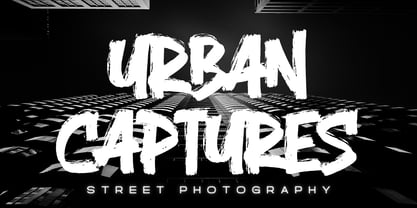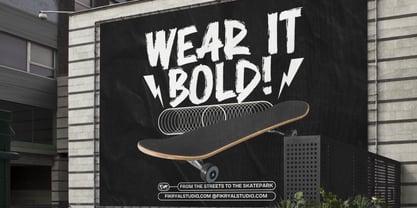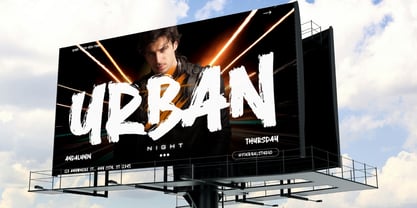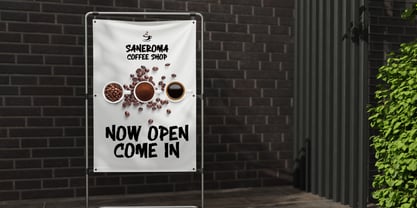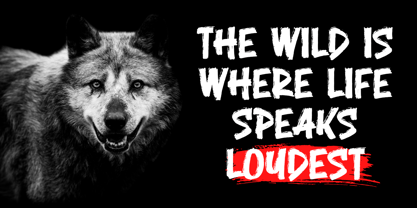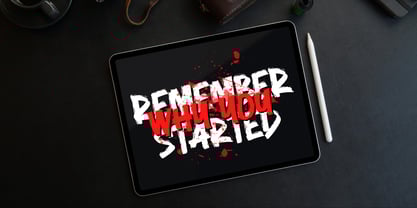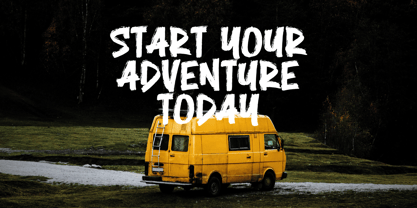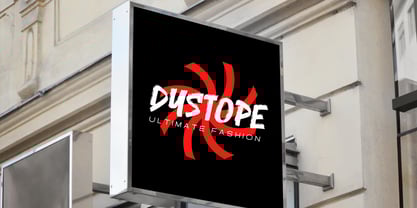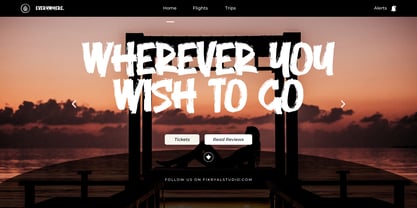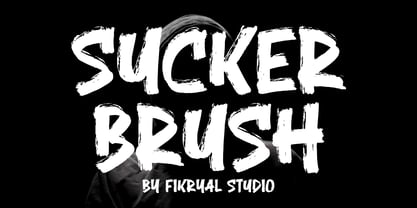
Sucker Brush
by Fikryal
The Sucker Brush Font Family was designed by Muhammad Fikry and published by Fikryal. Sucker Brush contains 1 styles. More about this family
Sucker Brush is a bold and energetic display brush font, designed to bring a raw, hand-painted feel to your designs. With its strong brush strokes and expressive texture, this font is perfect for projects that demand a powerful and eye-catching look.
Whether you’re designing for branding, posters, headlines, apparel, packaging, or social media, Sucker Brush adds a bold, contemporary, and artistic flair, ensuring your text commands attention and leaves a lasting impression.
Features:
Bold & dynamic brush style
Authentic hand-painted texture
Perfect for branding, posters, apparel & more
-- Uppercase